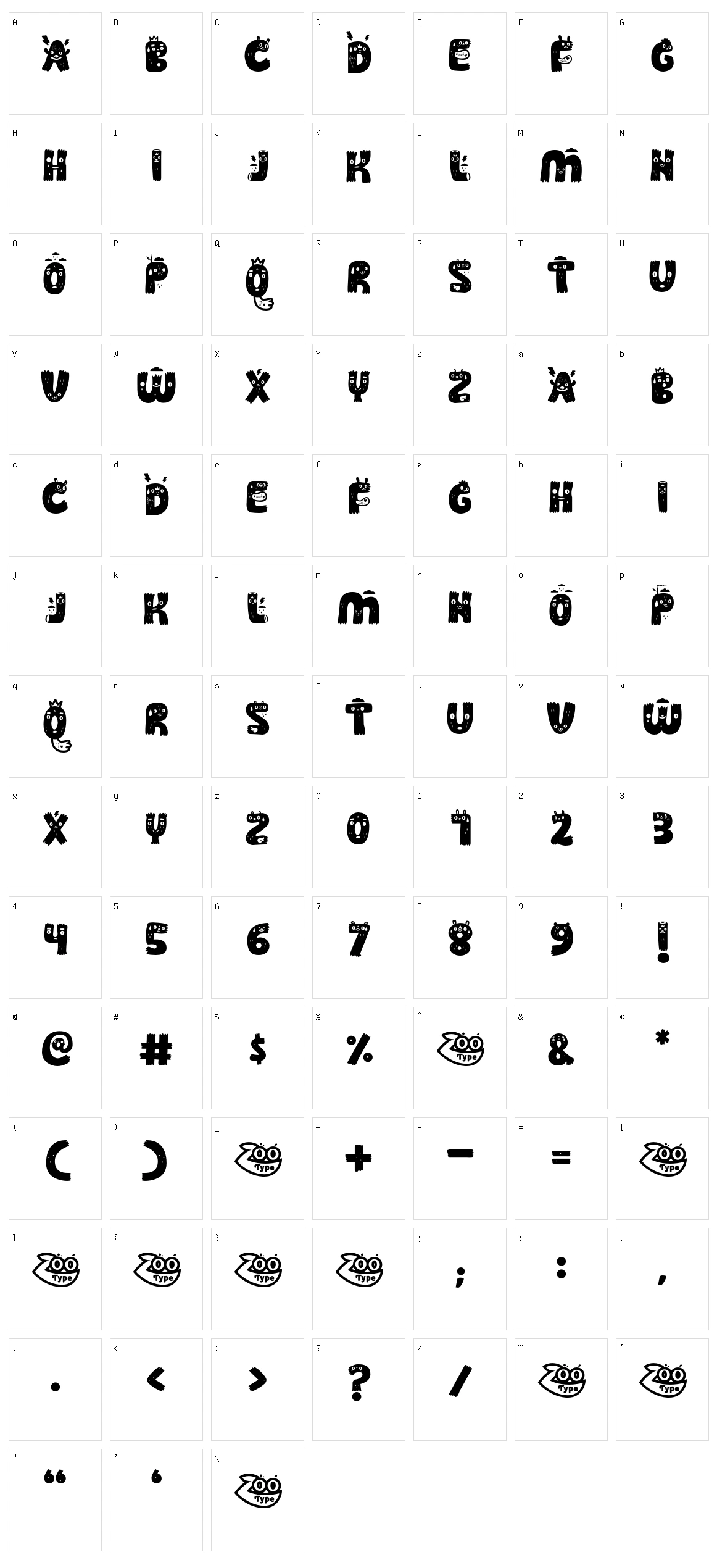
Concept: Guakala is a display typeface, containing various alphabets (Cyrillic, Greek)
typography is an entertaining and cheerful looking to be in different support